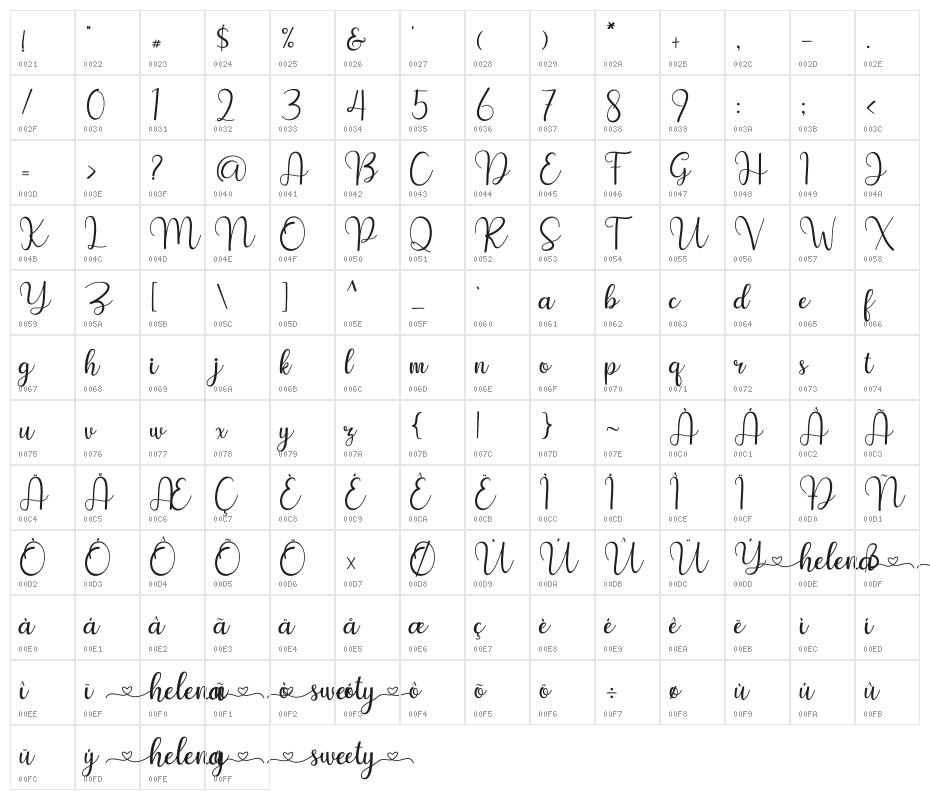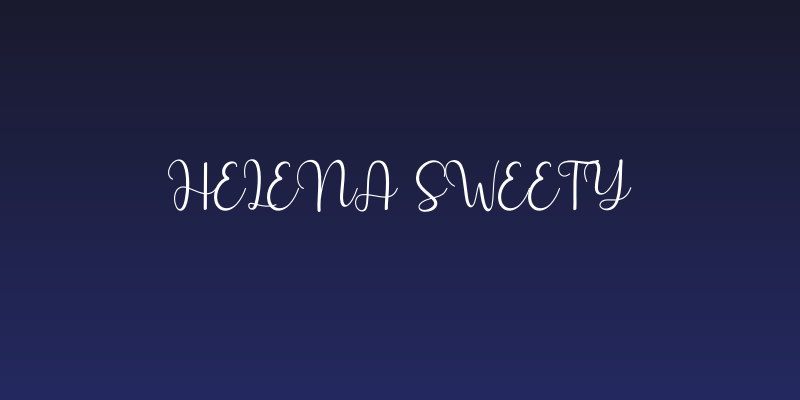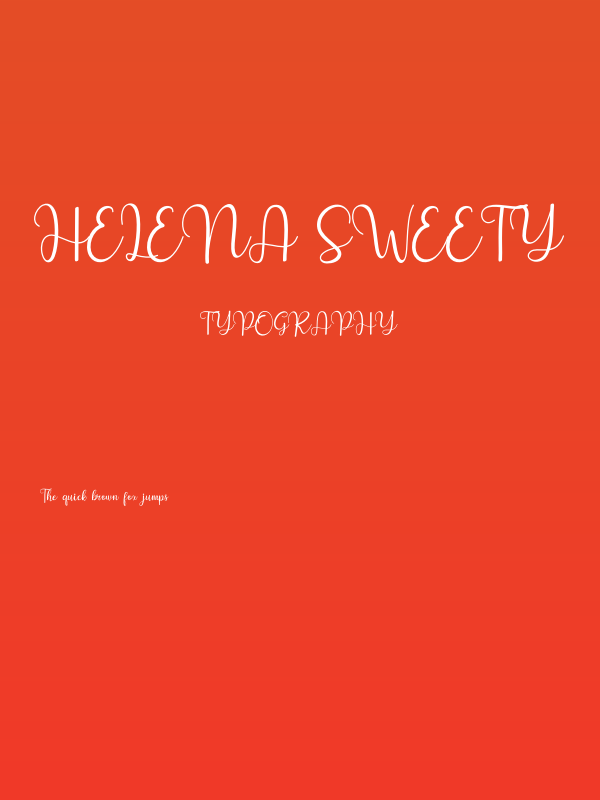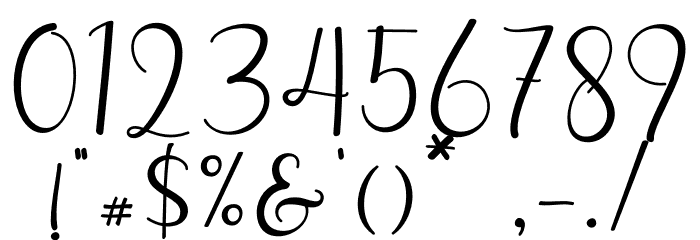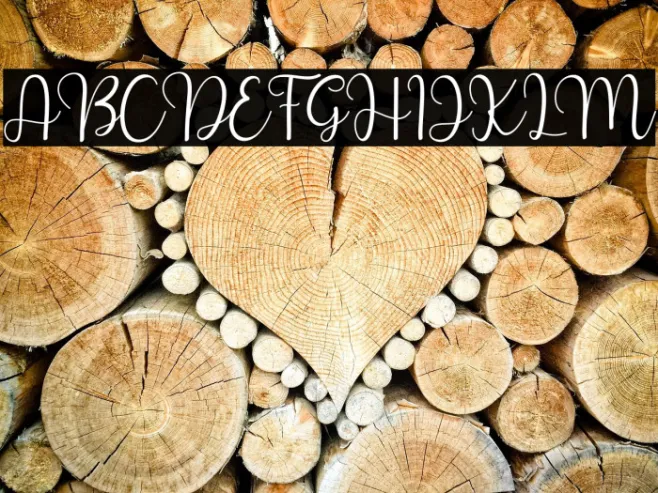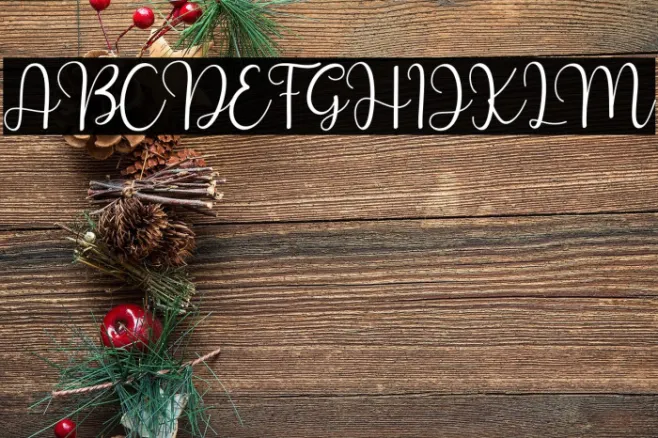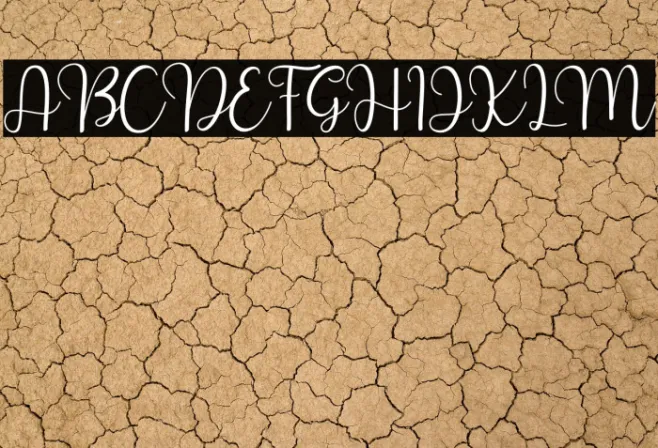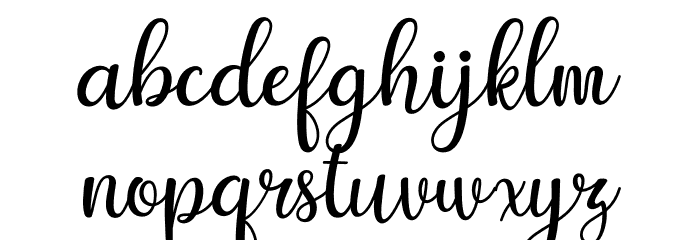
Helena Sweety Font
Helena Sweety Description
This font features a charming and elegant script style with a handwritten feel. The uppercase letters are tall and slender, with graceful loops and curves that give a sense of fluidity and motion. The lowercase letters maintain a consistent flow, with some letters extending slightly below the baseline, adding to the font's dynamic appearance. The numerals are clear and easy to read, with a slight slant that complements the overall script style. Special characters are thoughtfully designed, maintaining the font's cohesive aesthetic. This font exudes a sense of sophistication and warmth, making it suitable for a variety of creative projects.
| Use Case | Logos, Invitations, Social Media |